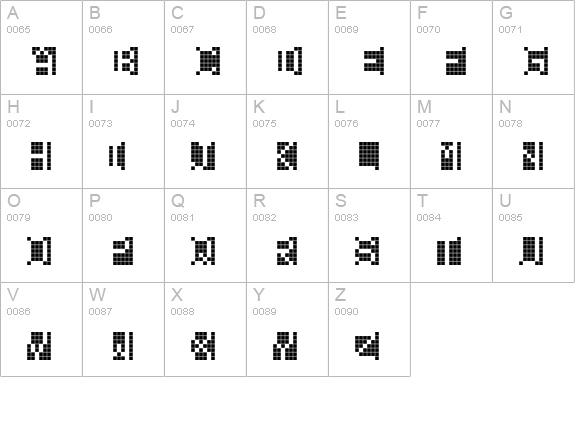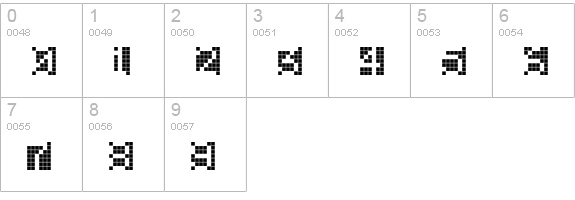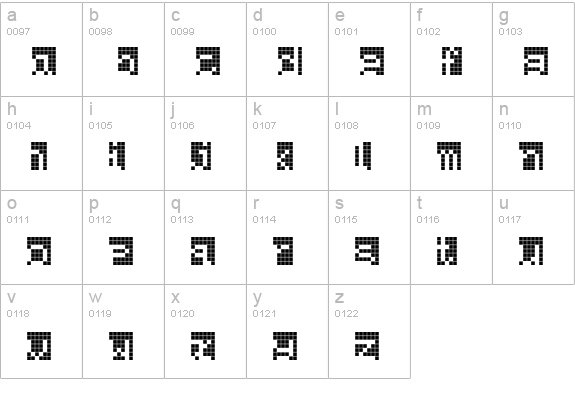
Automation-Grid Font Details
Introducing Automation-Grid font, a modern and sleek typeface designed to give your projects a clean and professional look. This versatile font features sharp lines and a unique grid-inspired design that will make your text stand out on any platform. Whether you're working on a website, branding materials, or print designs, Automation-Grid font is the perfect choice to add a touch of sophistication to your work. Its clean and futuristic appearance makes it ideal for tech-related projects, but its versatility allows it to be used in a variety of design contexts. Best of all, Automation-Grid font is completely free to download at FontsMarket.com. This means you can start using this high-quality font in your projects without any cost, making it a valuable asset for designers and creatives looking to elevate their work. Don't miss out on the opportunity to enhance your designs with Automation-Grid font today!